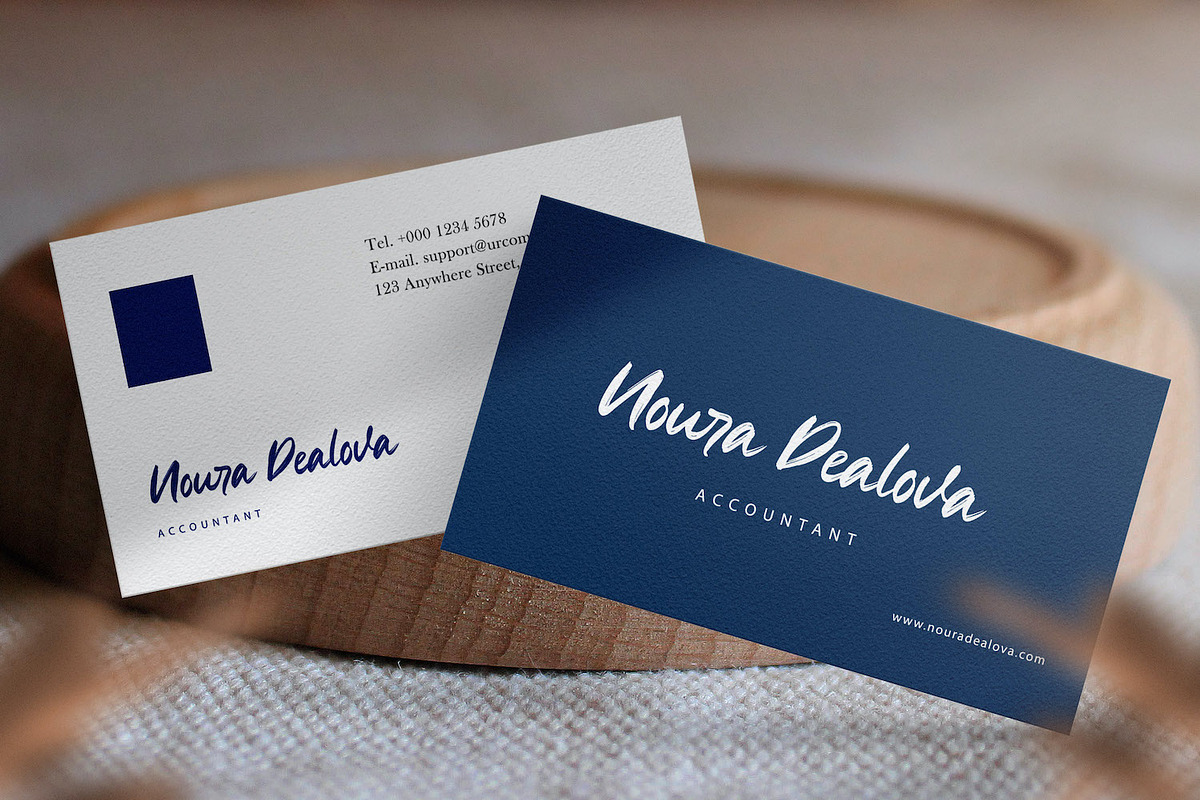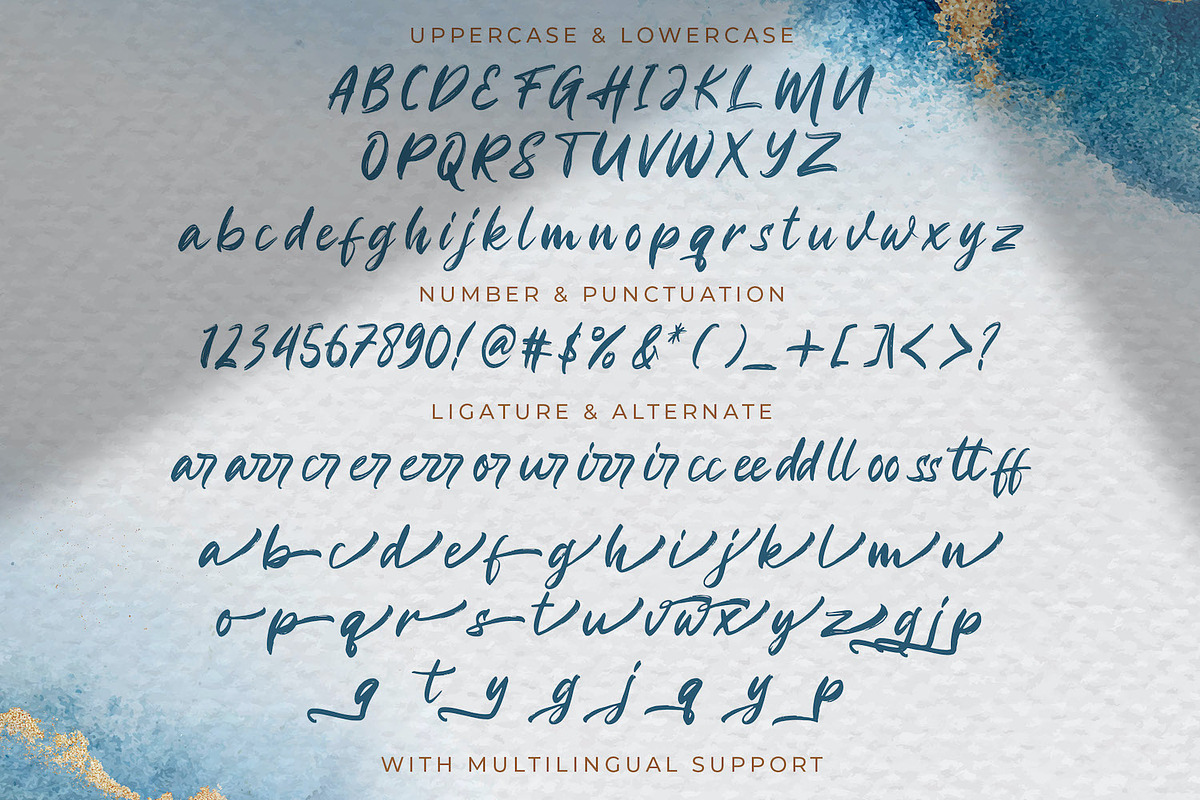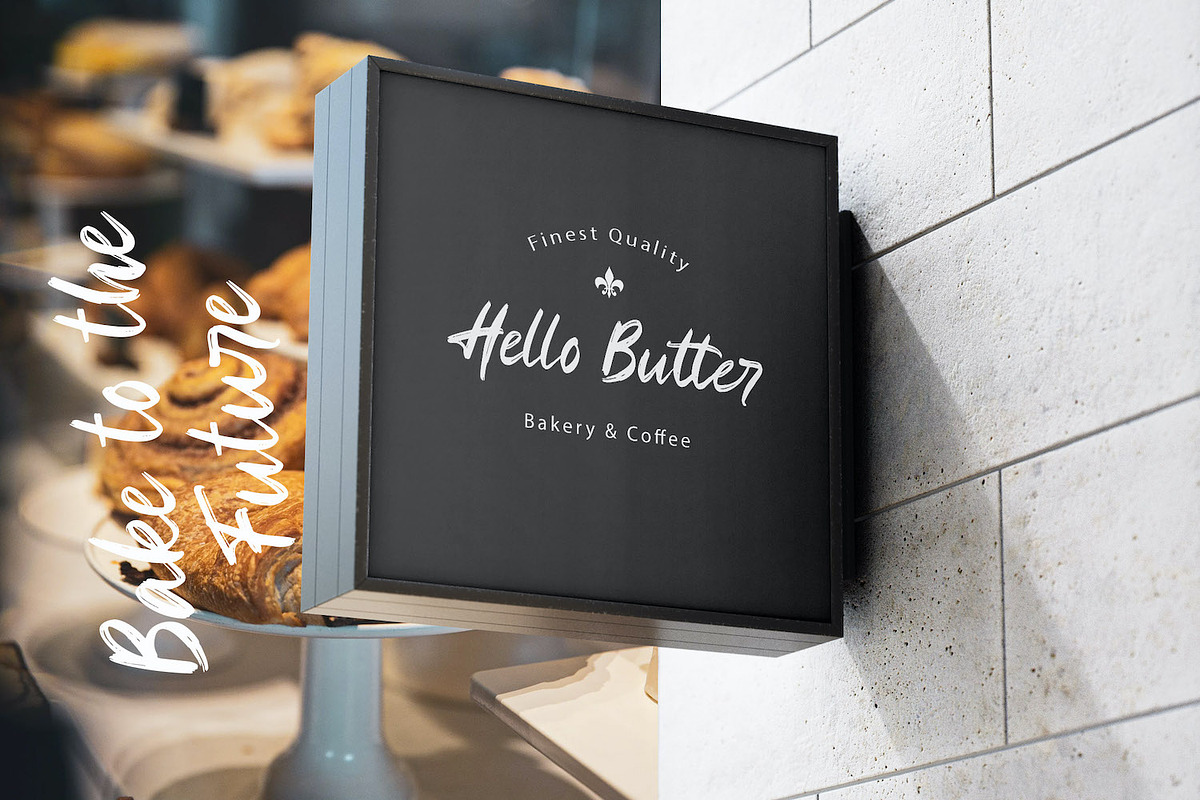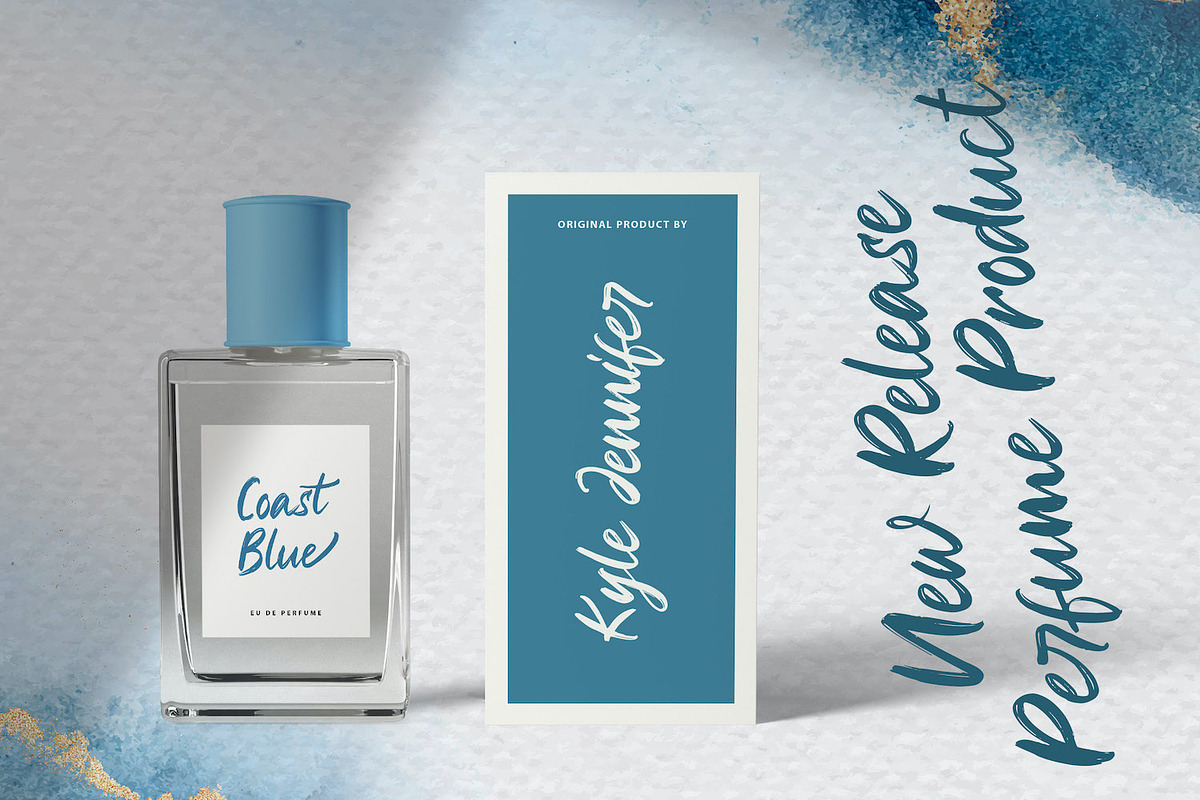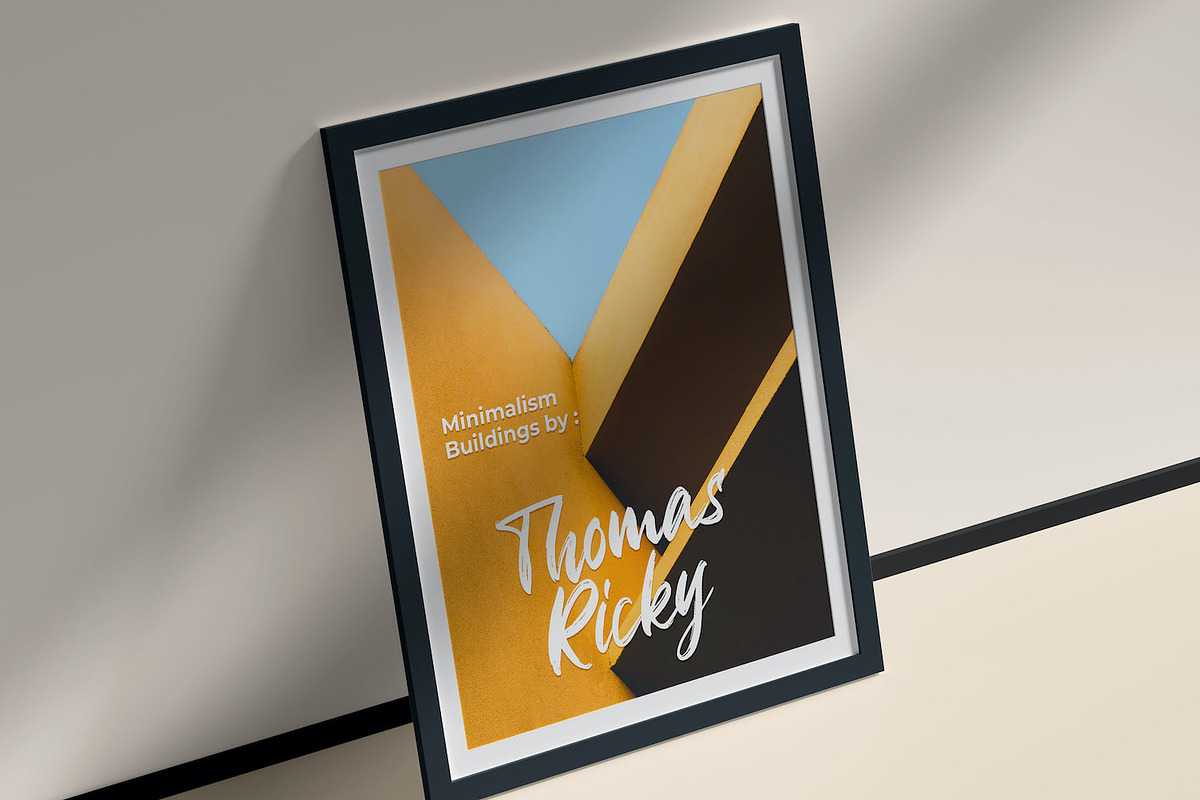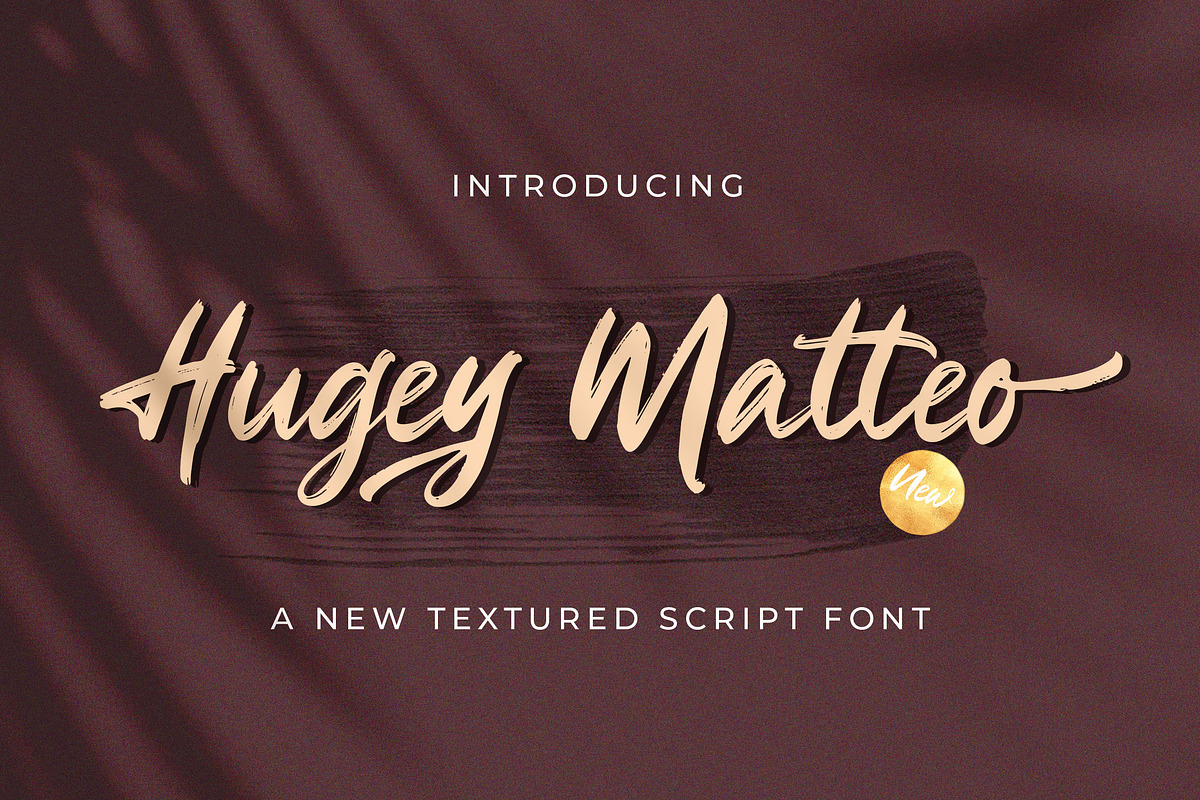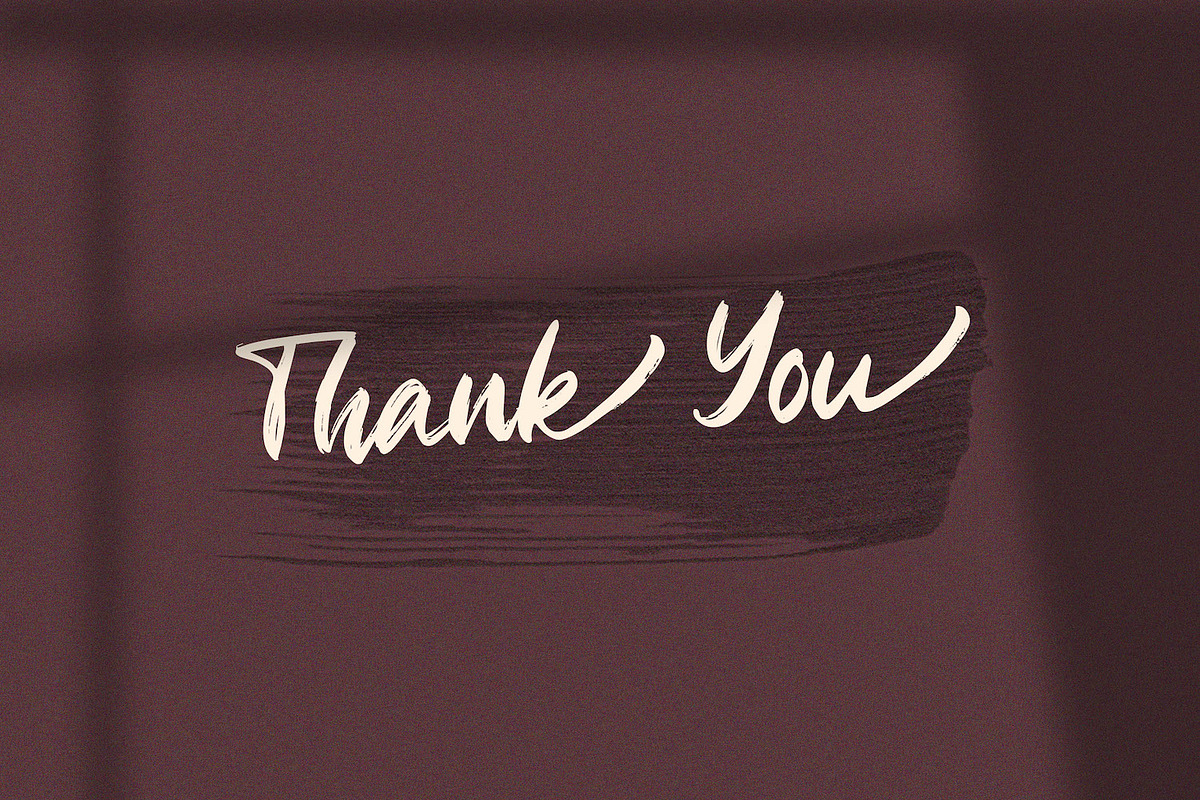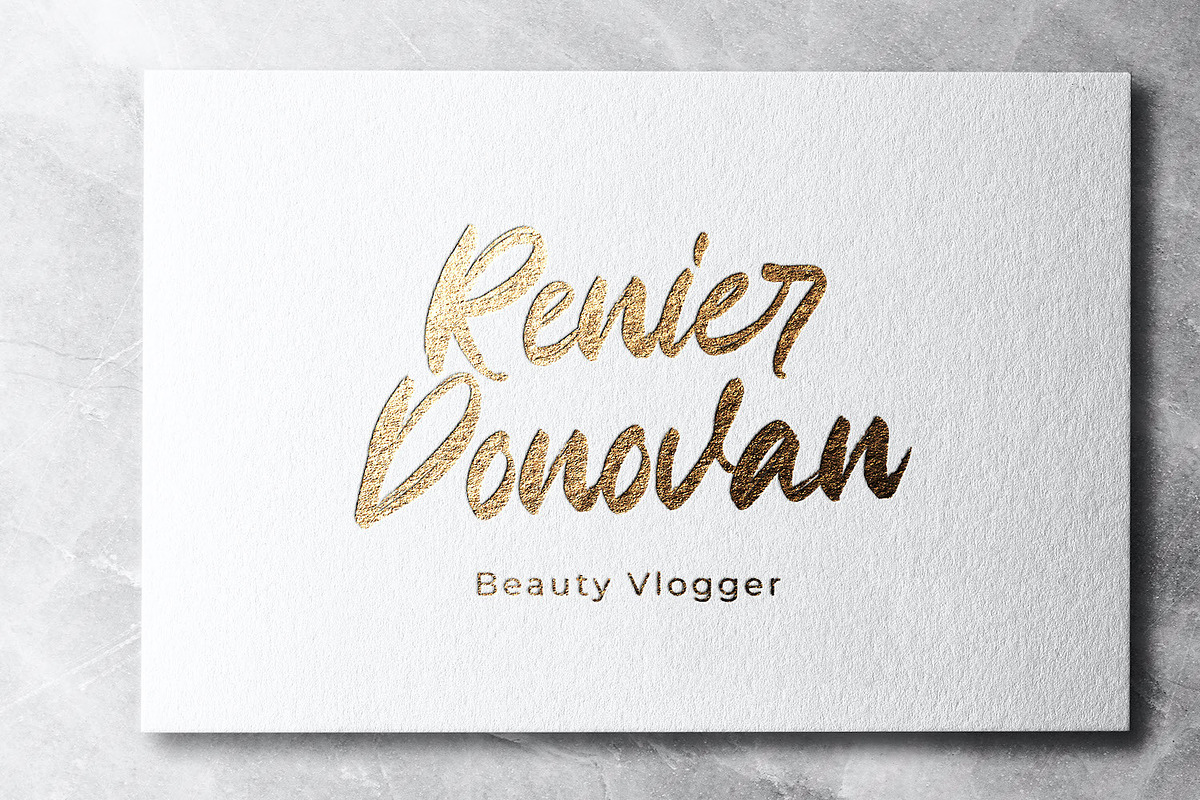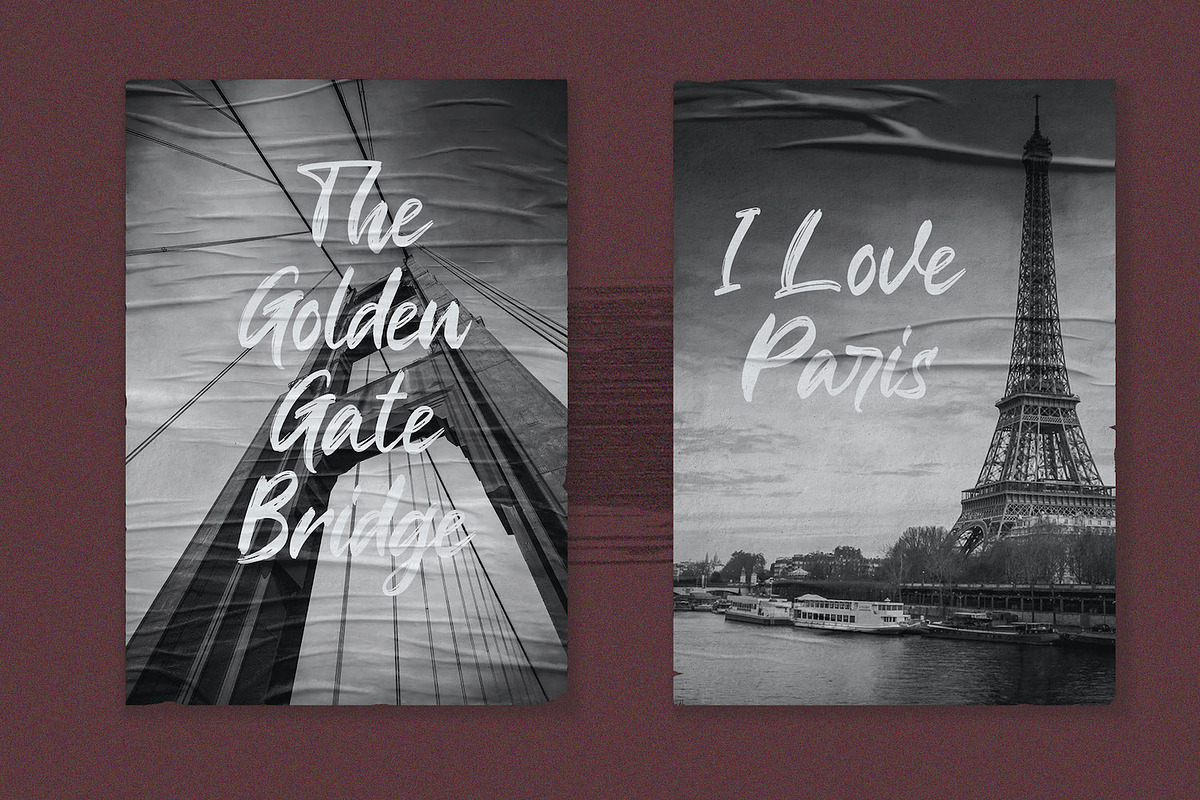
Higuey Matteo - Textured Brush Font
Introducing Higuey Matteo - Textured Brush Font
Higuey Matteo is a textured handbrush font. Get inspired by its unique and beautiful style and add it to your favorite designs!